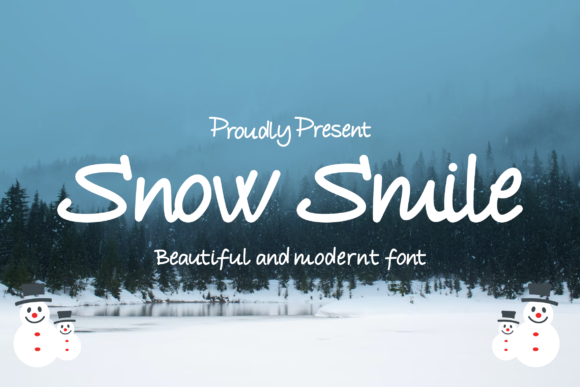
Catch the eye-catching handwritten font named Snow Smile. It's a breathtaking script font that carries a unique and authentic touch, designed by the talented kalingga.albert. This font was masterfully created to make your branding projects shine like never before. Picture your logo, t-shirt designs, and even esports ventures adorned with this captivating font. It will undoubtedly leave a lasting impression and captivate your audience. Snow Smile is the key to unlocking unparalleled creativity and standing out from the crowd. So dive into the world of Snow Smile and let your imagination run wild.
Snow Smile is a font with a heart of gold, a touch of elegance, and a dash of mischief. It's perfect for capturing the spirit of memes while still maintaining a touch of sophistication. Whether you're looking to create hilarious social media posts or add a touch of whimsy to your website, Snow Smile won't let you down. It's the font that knows how to make people smile.
Snow Smile, like a winter wonderland, invites you on an enchanting journey. Its swirling curves and playful strokes evoke a sense of magic and wonder. This font will transport your designs to a realm of pure imagination, where anything is possible. Snow Smile is more than just a font; it's a gateway to a world of creativity and joy. Unleash your inner child and let Snow Smile paint a smile on your designs.